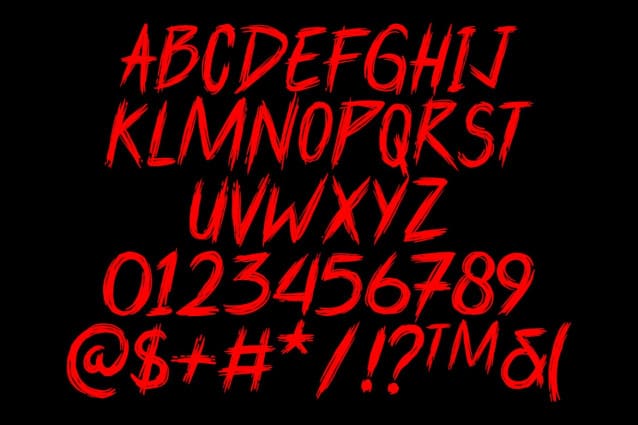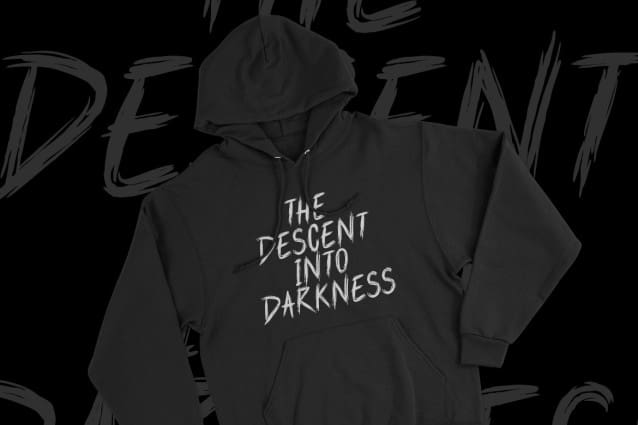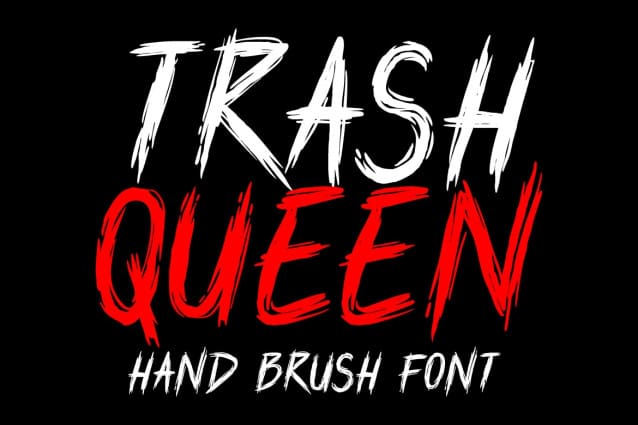
Trash Queen Font
Trash Queen Font is a hand brush font that exudes ferocity and unforgettable attitude. With its bold strokes and rebellious flair, ‘Trash Queen’ is designed to leave a lasting impression. This font effortlessly combines fierceness with memorability, making it the perfect choice for a bold and impactful metal identity. Let ‘Trash Queen’ be the edgy and easily remembered signature for your fierce musical journey.